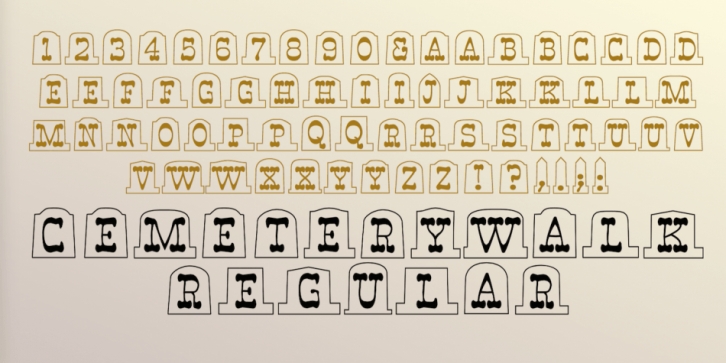
Designed by Robert Schenk, CemeteryWalk is a dingbat font family. This typeface has two styles and was published by Ingrimayne Type.
CemeteryWalk was designed for a cemetery-walking-tour event.
It features upper-case letters (derived from the font Roundup) on tombstones. It has two styles, a regular style with black letters on white stones and a bold style with white letters on black stones.
It is caps only, with the lower-case letters having different shapes for the tombstones but the same letters as in the upper case. The regular style can be overlayed on the bold version to create colored letters on colored grave markers.